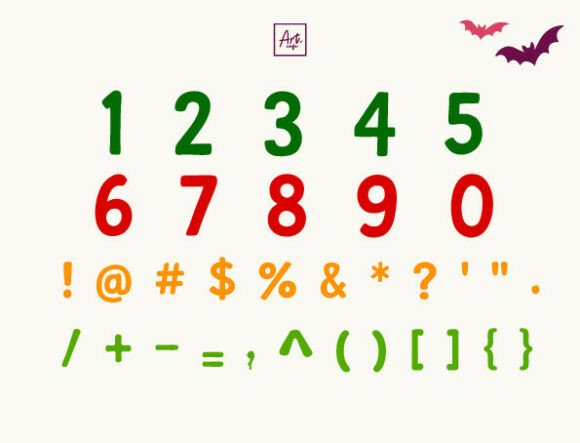
Jolly Christmas Font
Bring holiday cheer to your designs with Jolly Christmas, a bold and playful display font perfect for festive projects. Its chunky, hand-drawn style with bright, cheerful vibes makes it ideal for Christmas cards, invitations, posters, T-shirt designs, mugs, tote bags, and more.
This font captures the joyful spirit of the season with easy-to-read letters that stand out in any project. Whether you’re designing for print or digital, Jolly Christmas will add a fun, cozy, and festive touch.
Perfect for:
🎄 Christmas quotes
🎅 Greeting cards & invitations
✨ Holiday decorations & crafts
🛍 Sublimation projects, stickers, and printables